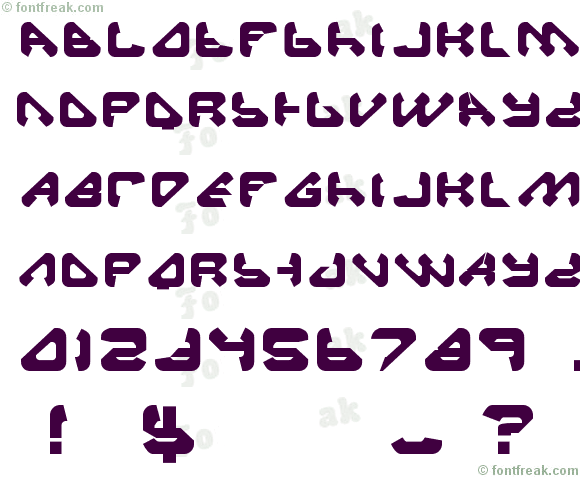
Backup Generation 1
Backup Generation 1 — Character Map
About Backup Generation
Backup Generation is a unique display font designed by Tommy Cary that exudes a playful yet structured vibe, making it perfect for various creative projects. This font falls into the decorative category, boasting an eclectic style that combines bold lines with a hint of retro charm. The letters feature a moderate stroke weight, offering a balanced appearance that is both eye-catching and legible. The character spacing is generous, allowing for easy reading while enhancing the overall visual appeal. Decorative elements are subtly integrated, giving the font a distinctive personality without overwhelming the design.
Ideal for a range of applications, the Backup Generation font shines in contexts such as event posters, children's book covers, and social media graphics. Its playful aesthetic makes it a fantastic choice for designing vibrant restaurant menus or fun promotional materials for small businesses. Additionally, this font can elevate the visual identity of creative projects, making it a favorite among graphic designers and content creators looking to add a unique flair to their work.
What truly sets Backup Generation apart is its ability to blend nostalgia with contemporary design trends. This font captures attention while maintaining versatility, making it a valuable addition to any designer's toolkit. Whether you're crafting a whimsical invitation or a striking advertisement, Backup Generation offers a refreshing choice that brings your creative vision to life.